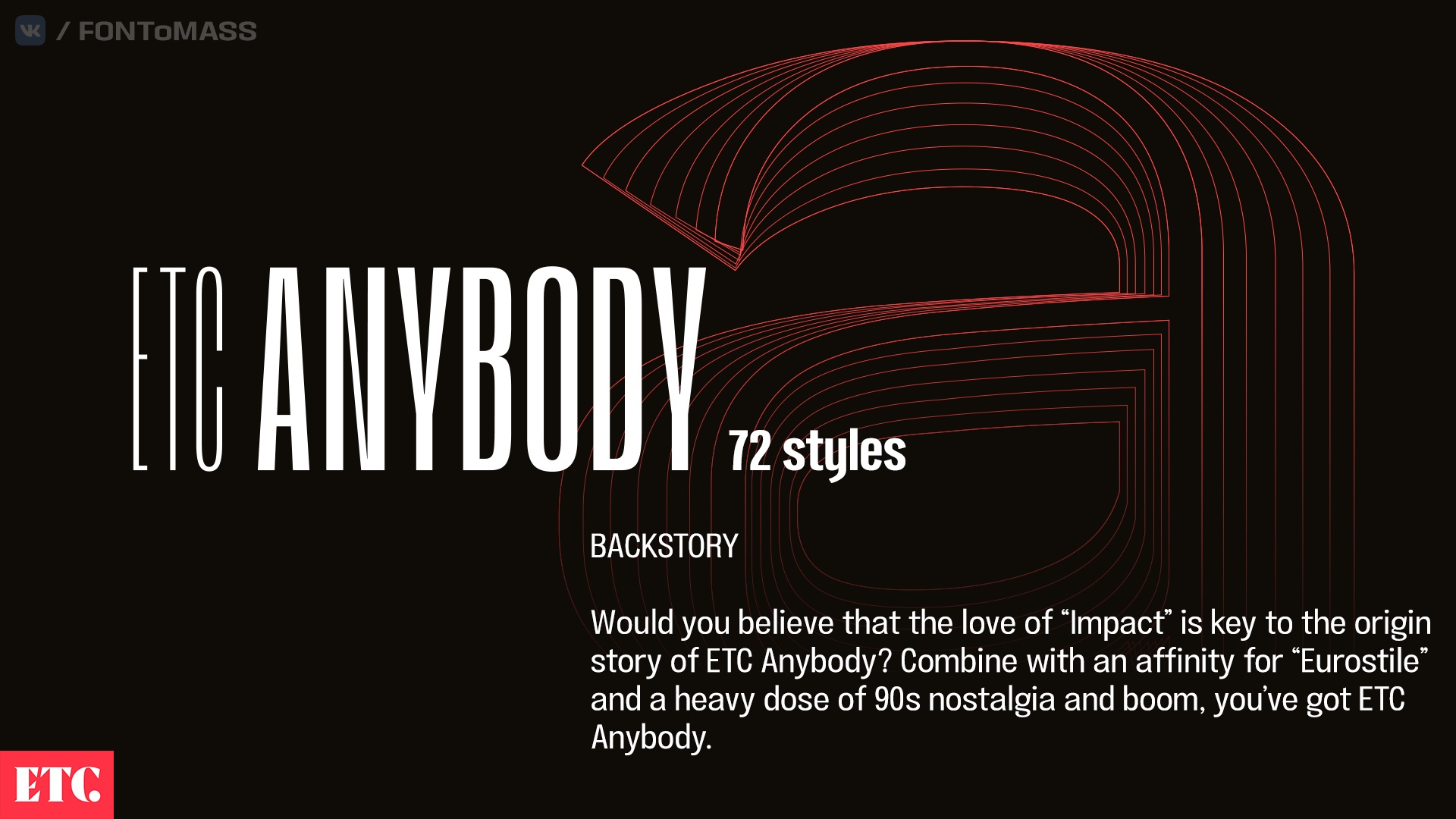
ETC Anybody Font
ETC Anybody Font is perfect for inclusive branding campaigns, universal accessibility materials, diverse community communications, democratic design projects, open-access publications, inclusive web interfaces, universal design systems, egalitarian messaging platforms, community-focused initiatives, and barrier-free communication solutions.
What makes ETC Anybody Font so exciting is its remarkable embodiment of universal accessibility and democratic design that creates truly inclusive typography accessible to everyone regardless of background, ability, or circumstance through thoughtfully engineered design principles. This inclusively crafted typeface features universally readable letterforms with accessibility-optimized proportions and barrier-free character variations that immediately convey openness, equality, and the fundamental principle that good design should serve all people equally. The font's democratic construction and universally accessible aesthetic create an instant sense of inclusive welcome and equitable communication, making it ideal for projects that need to communicate universal accessibility, democratic values, and the transformative power of inclusive design to audiences seeking authentic equality and meaningful universal access.
The ETC Anybody Font family typically includes multiple accessible weights and inclusive styles, often featuring light through bold variations along with clearly readable italic versions and accessibility-optimized alternatives. Universal design font families frequently offer extensive character sets including comprehensive language support, accessibility symbols, and inclusive notation that ensure optimal typography across diverse global communication requirements and barrier-free design applications.
The inclusive nature of ETC Anybody Font makes it particularly effective for targeting demographics that prioritize universal access and democratic design in their personal and professional communications. Accessibility professionals and inclusive design specialists will find this font especially valuable for materials that must establish immediate accessibility credibility and connect with audiences seeking authentic inclusive experiences and meaningful barrier-free communication.
What sets ETC Anybody Font apart is its ability to provide universal accessibility while maintaining the design quality necessary for effective professional and creative communication. This balanced characteristic makes it suitable for both specialized accessibility applications and mainstream design contexts where projecting inclusive values and maintaining broad appeal must work together seamlessly.
Professional designers recognize that ETC Anybody Font brings invaluable accessibility credibility to projects across industries including public services, educational institutions, healthcare communications, and community development. Its inclusive character and universal appeal make it essential for organizations whose mission centers on promoting equality, advancing accessibility, and creating meaningful connections between diverse communities and barrier-free communication solutions.
The systematically inclusive design of ETC Anybody Font ensures consistent accessibility messaging across all universal communication applications while honoring the fundamental principle that effective design should serve all people equally and without barriers.